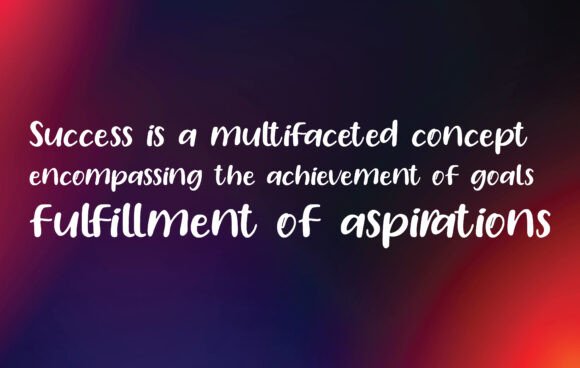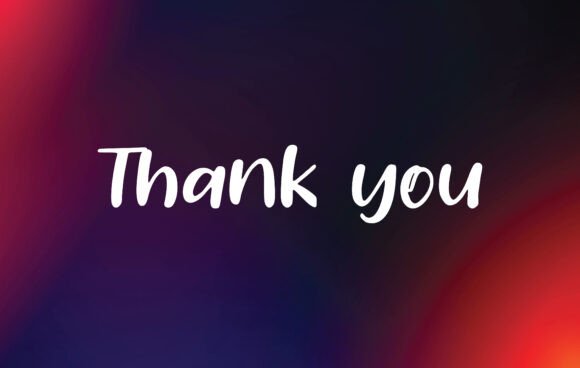
Introduction to Andres Font
Andres is a lovely and beautiful handwritten font.
Key Features of Andres Font
Why Choose Andres Font?
Andres Font offers exceptional quality and versatility, making it a valuable addition to your design toolkit. Whether you’re creating for personal projects or commercial use, Andres Font delivers professional results.